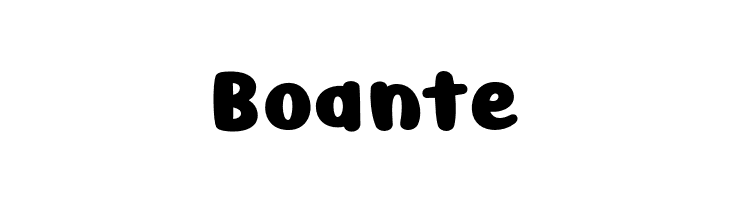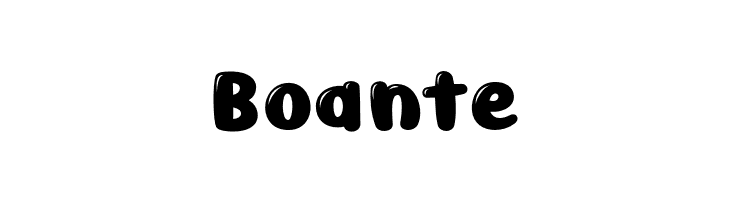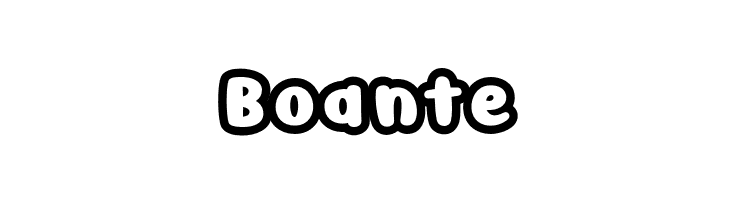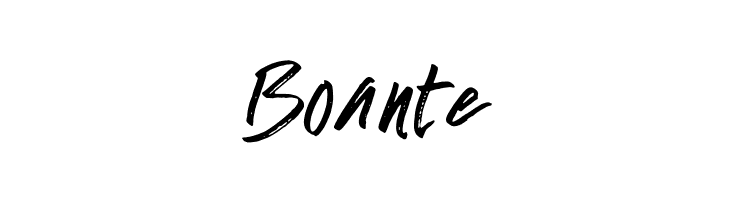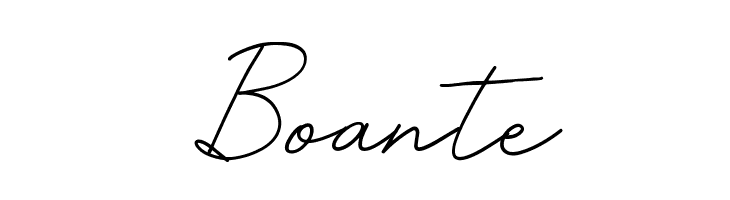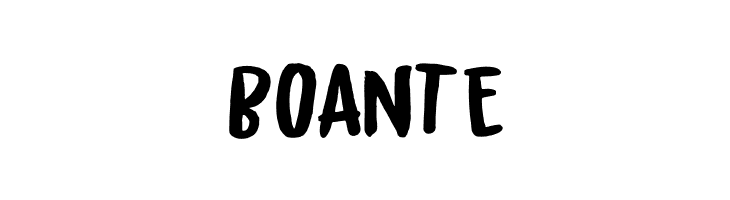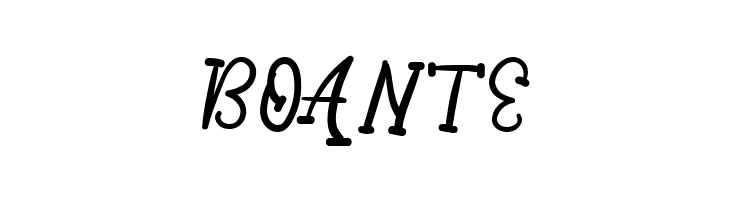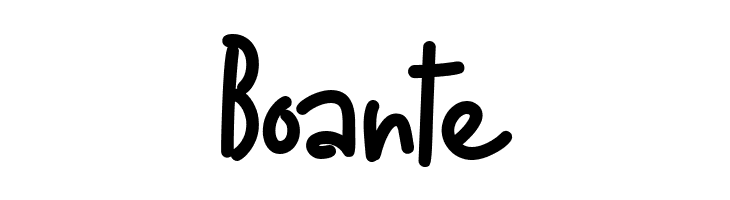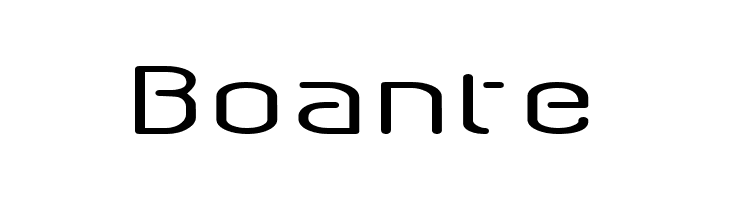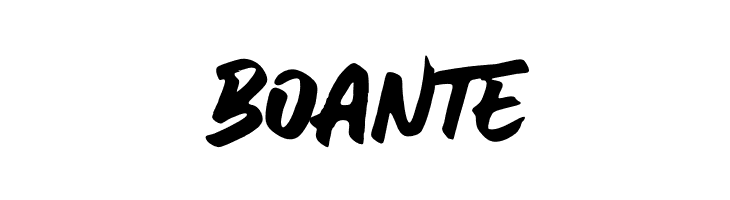
• Awesome Friday
A playful, casual handwritten font with smooth, rounded edges and consistent strokes.
• Awesome Girl Demo
A playful and elegant script font with decorative flourishes and a handwritten feel.
• Awesome Java Regular
A geometric and angular font with a futuristic, decorative style.
• AweSomE JouRneY
A bold, brush-style script font with dynamic, hand-drawn characteristics.
• Awesome Outline
A modern outline font with clean lines and geometric shapes.
• Awesome Party Display
A bold and playful font with dynamic curves and lively character.
• Awesome Party Regular
A playful, hand-drawn font with bold, whimsical strokes.
• Awesome Quote
A bold, playful handwritten font with a casual and quirky style.
• Awesome Regular
• Awesome Sauce DEMO Regular
A bold, hand-painted font with a playful and artistic style.
• Awesome South Korea
A geometric, modern font with a bold and structured design.
• AwesomeFont
• AwesomeFreeFont
A dynamic and elegant script font with bold lowercase letters and flowing uppercase characters.
• AwesomeParty-Regular
A playful, cursive font with a dynamic and whimsical style.
• AwesomePlay
A bold, playful font with exaggerated, cartoonish characters.
• AwesomePossumDemo-Outline
A playful, bold font with thick, rounded outlines and a cartoonish style.